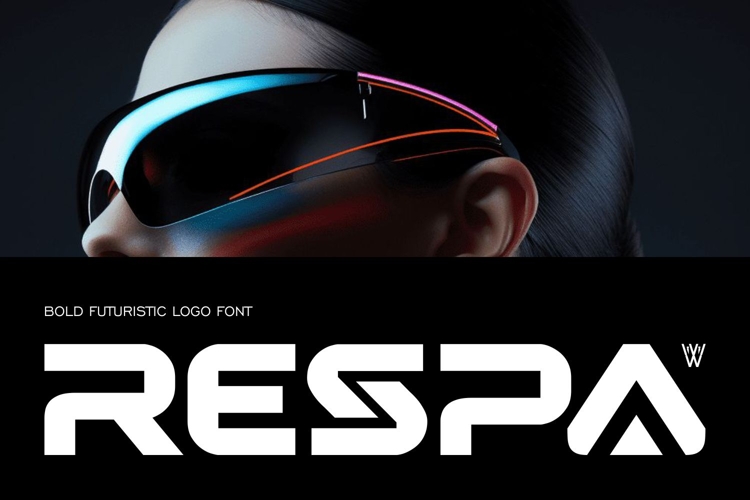
Respa bold futuristic logo font
RESPA is a bold futuristic logo font crafted for modern branding, technology, gaming, AI, fintech, and digital creators.
Its geometric construction, clean lines, and distinctive futuristic details create strong visual identities that remain highly readable across logos, thumbnails, websites, packaging, and digital products.
Whether you're creating a startup identity, esports logo, YouTube thumbnail, software branding, or futuristic poster, RESPA delivers a bold and professional appearance that instantly elevates your design.
Perfect for
• Tech Branding
• AI Projects
• Gaming Logos
• Esports Identity
• Crypto Branding
• Startup Logo Design
• YouTube Thumbnails
• UI & Digital Products
• Automotive Branding
• Modern Posters
A futuristic logo font built to make every brand look bold, innovative, and unforgettable.